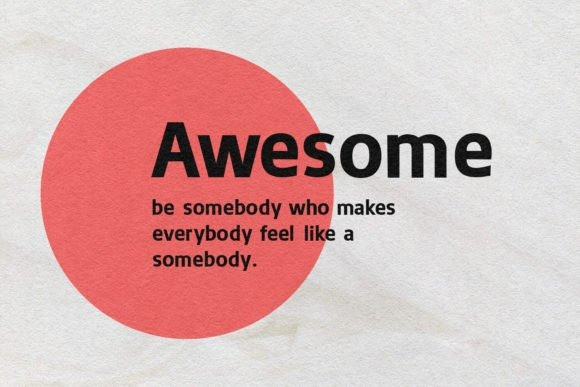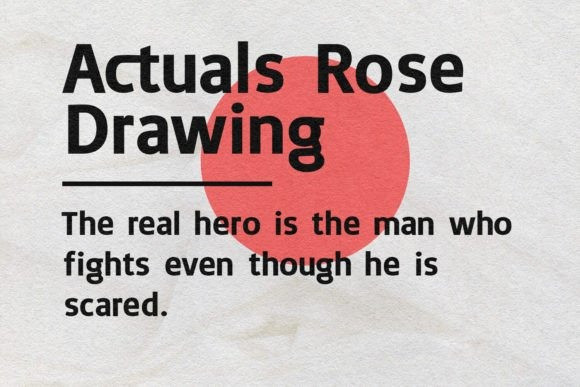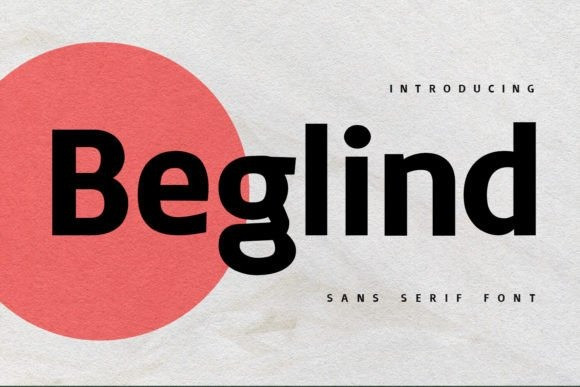
Beglind Font
Beglind Font is a clean, modern sans-serif font with simple lines and easy-to-read letters. It’s great for making text look fresh and stylish.